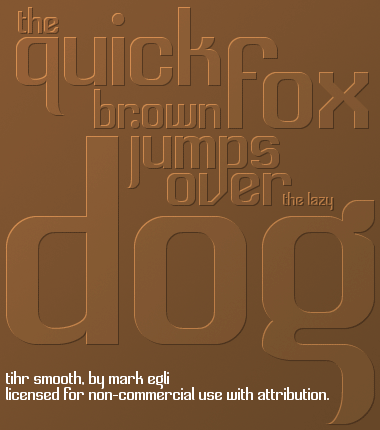
• TihrEschtl with curves to get practice with a 2x2 filter. Did I really just make the same font again for the 3rd time? Sigh...
Making the same font three times with specific technical variations is as good a place to start as any. A very good place, indeed, to learn firsthand some of the intricacies of the FontStructor. Believe me: They are so many more than reveal themselves upon first blush! ;)
A worthy progression - good use of 2:2 filter. I really must get to grips with that pesky filter business sometime :( 10/10